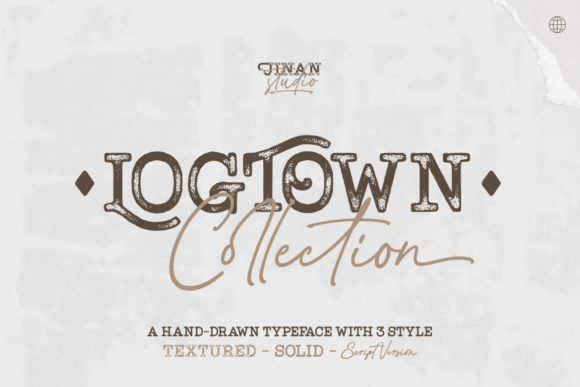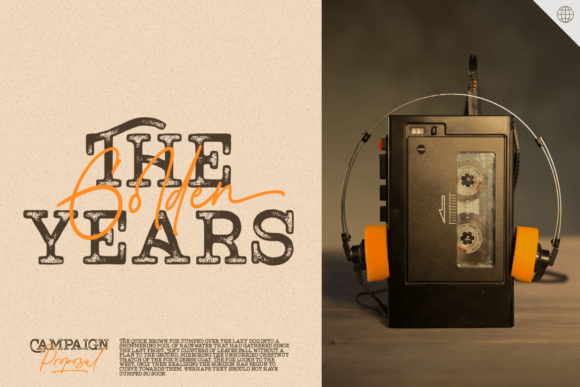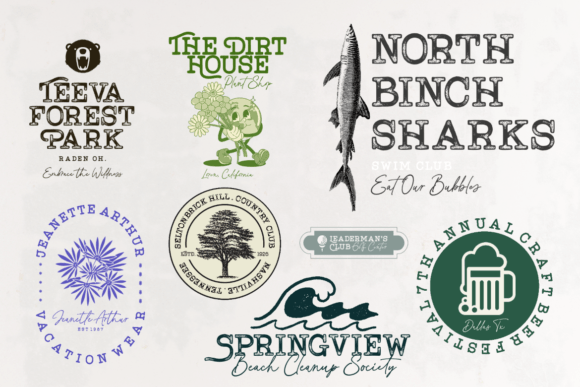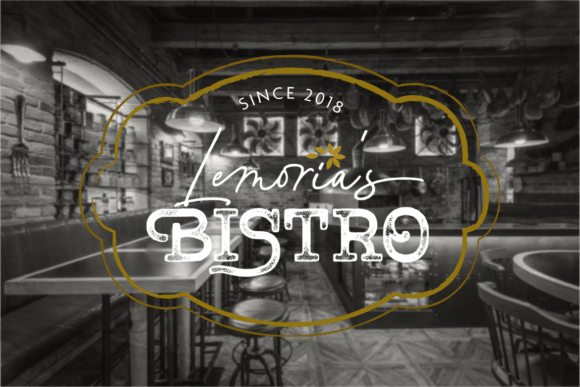
Logtown Font: Vintage Branding with Rugged Edge & Script Options!
About the Logtown Font
Introducing the Logtown Font, a beautifully crafted typeface designed to elevate your creative projects. Logtown is a hand-drawn font that blends vintage charm with a rugged edge. It’s the perfect choice for your vintage-themed logos, branding, and adventurous designs. This font combo combines both elegant Script and Slab Serif styles, giving you options from solid to textured looks. Plus, it’s got your back with support for multiple languages, making sure your message reaches everyone. Whether you’re aiming for nostalgia or a modern twist on the classics, Logtown has you covered for stylish and impactful designs.
Logtown Font Usage Examples
Logtown Font Example